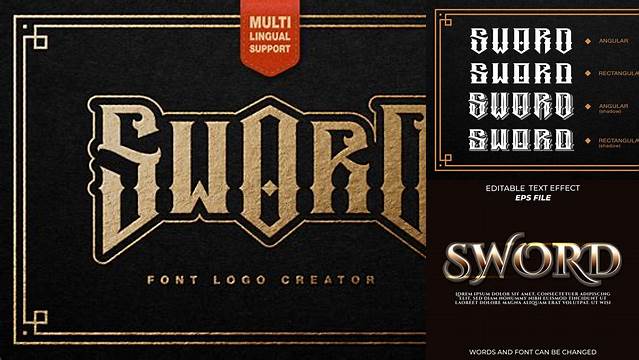
Are you looking to create a sword font logo that embodies strength, power, and a touch of medieval flair? You've come to the right place! A well-designed logo can make all the difference in brand recognition, and if you're aiming for a bold, impactful image, a sword font is an excellent choice. In this article, we'll explore the world of sword font logo creators, discuss where you can find free downloads, and provide you with design tips to craft a logo that truly stands out. Let's dive in and forge a logo that makes a lasting impression!
Why Choose a Sword Font for Your Logo?
When it comes to logo design, the font you choose plays a crucial role in conveying your brand's message and personality. Sword fonts, with their sharp edges, strong lines, and often medieval or fantasy-inspired aesthetics, can evoke a sense of power, courage, and historical significance. For businesses or projects that want to project strength, reliability, and a touch of the epic, a sword font can be an incredibly effective choice. Think about brands in gaming, fantasy literature, historical reenactment, or even security services – a sword font logo can instantly communicate their core values and identity.
But beyond the symbolic connotations, sword fonts also offer a visually striking and memorable look. Their distinctive letterforms often incorporate elements reminiscent of blades, shields, and medieval weaponry, making them instantly recognizable and eye-catching. This visual appeal can help your logo stand out from the crowd and leave a lasting impression on your audience. Whether you're launching a new gaming channel, promoting a fantasy novel, or starting a historical-themed business, a well-crafted sword font logo can be a powerful asset in building your brand identity.
The key is to use a sword font thoughtfully and strategically. Consider the specific message you want to convey and choose a font that aligns with your brand's personality. A sleek, modern sword font might be perfect for a tech company with a cutting-edge approach, while a more traditional, ornate font might be better suited for a historical society or a fantasy-themed project. By carefully selecting the right font and incorporating it into a well-designed logo, you can harness the power of sword fonts to create a brand identity that is both memorable and meaningful.
Free Sword Font Logo Creators: Your Options
Creating a sword font logo doesn't have to break the bank. There are numerous free online logo makers and software options available that offer a variety of sword fonts and design tools. These platforms cater to both beginners and experienced designers, making it easy to craft a professional-looking logo without spending a fortune. Let's explore some of the best options:
Online Logo Makers
Online logo makers are a fantastic option for those who want a quick and easy way to create a logo. These platforms typically offer a user-friendly interface, drag-and-drop functionality, and a wide selection of templates and fonts, including many sword-themed options. Some popular free online logo makers include:
- FreeLogoDesign: This platform provides a straightforward logo creation process. You can start by selecting a logo template or creating your design from scratch. FreeLogoDesign offers a range of sword fonts and graphics, allowing you to create a unique and impactful logo. The free version provides a low-resolution logo, but you can upgrade for higher-quality files.
Free Design Software
If you prefer more control over your logo design, consider using free design software. These programs offer a wider range of features and customization options compared to online logo makers, but they may require a steeper learning curve. Some popular free design software options include:
- GIMP (GNU Image Manipulation Program): GIMP is a powerful open-source image editing program that rivals Adobe Photoshop in terms of features. While it doesn't have pre-made logo templates, GIMP allows you to create logos from scratch using its extensive set of tools, including text manipulation, layering, and special effects. You can download sword fonts from external sources and import them into GIMP.
- Inkscape: Inkscape is a free and open-source vector graphics editor, similar to Adobe Illustrator. Vector graphics are ideal for logos because they can be scaled to any size without losing quality. Inkscape offers a wide range of drawing tools, text options, and effects, making it a great choice for creating professional-looking logos. You can also import and use sword fonts in Inkscape.
Remember, your logo is the face of your brand, so take the time to create a design that accurately reflects your values and resonates with your target audience. Whether you're launching a new business, revamping an existing brand, or simply exploring your creative potential, a well-crafted sword font logo can be a powerful asset in making a lasting impression. So go forth, explore the world of sword fonts, and create a logo that truly shines!